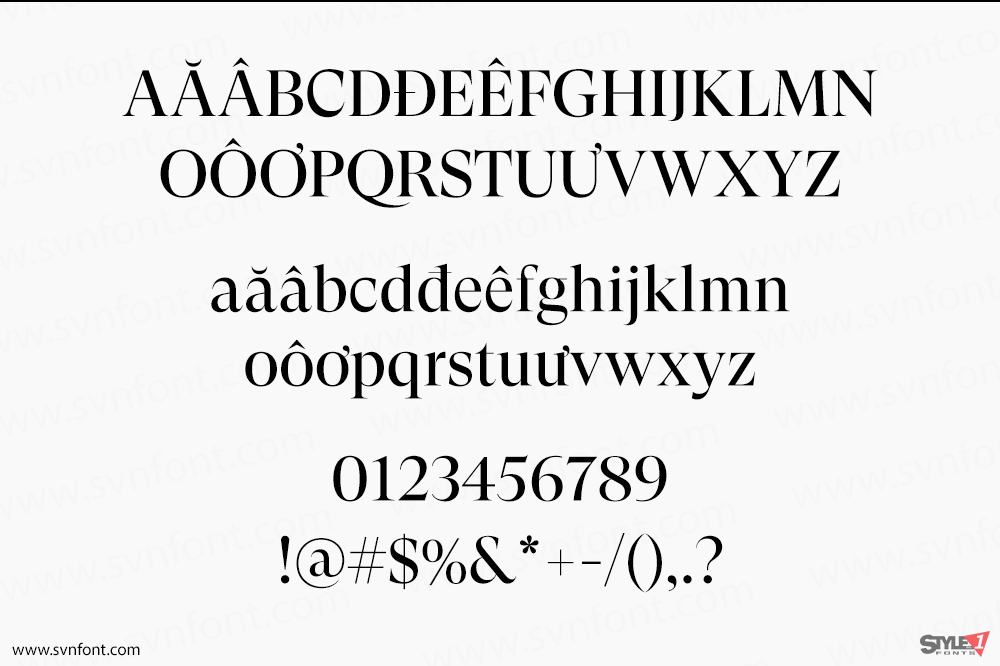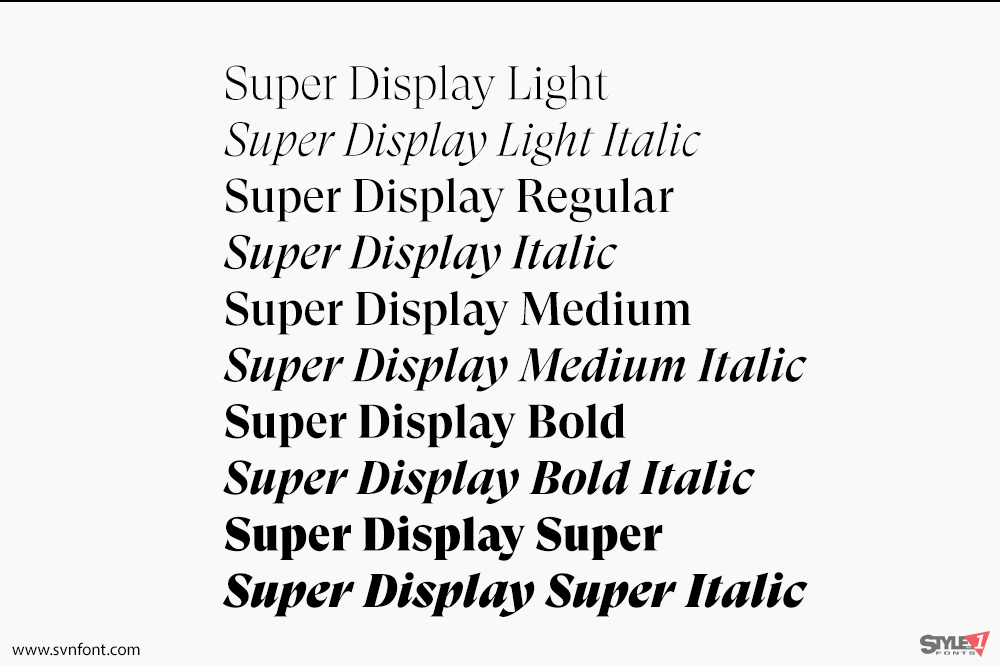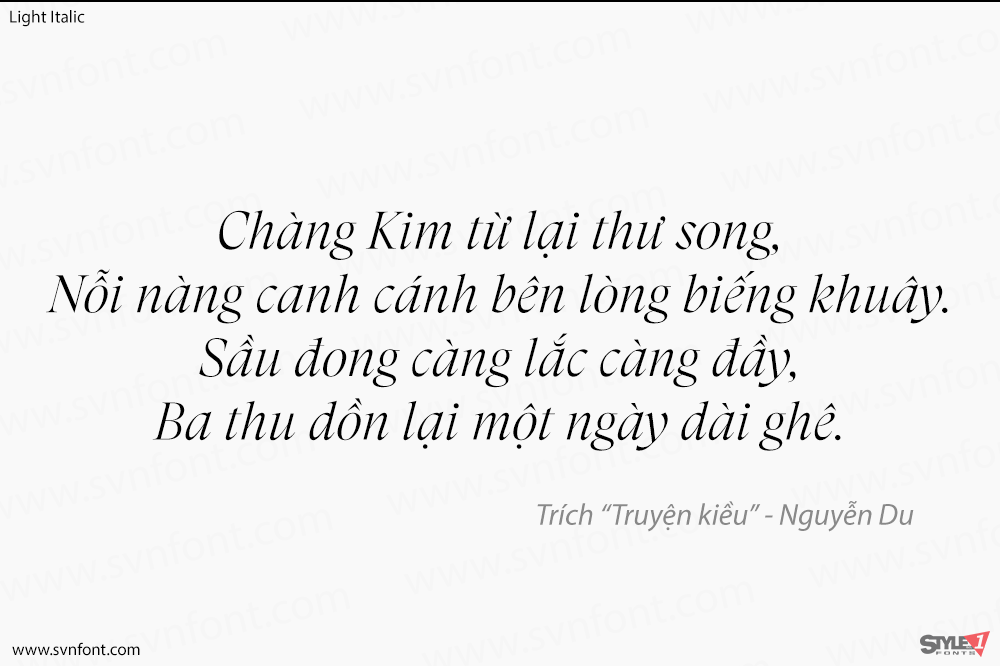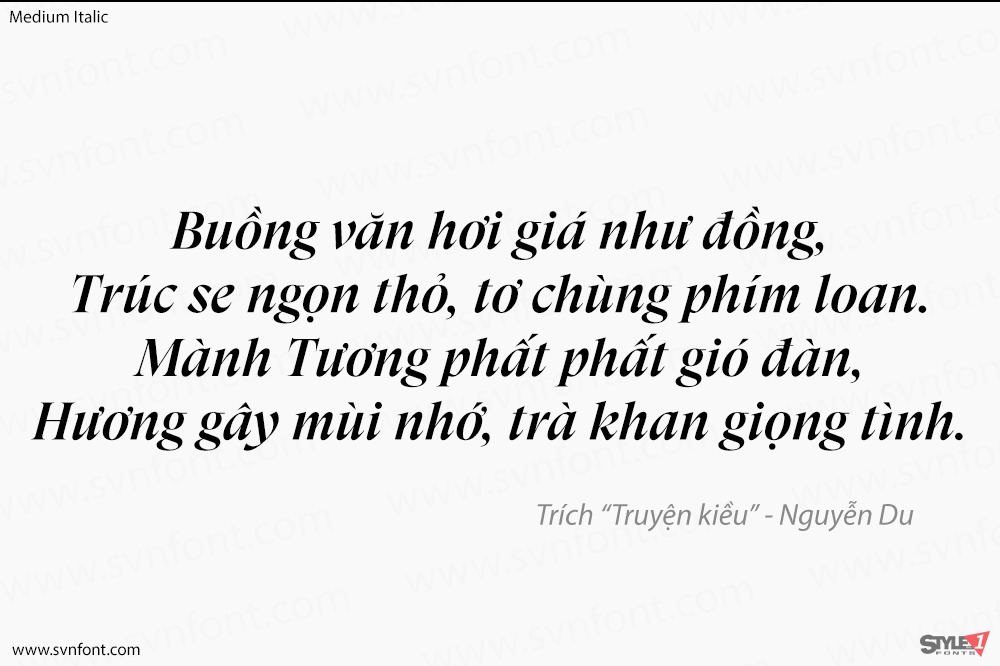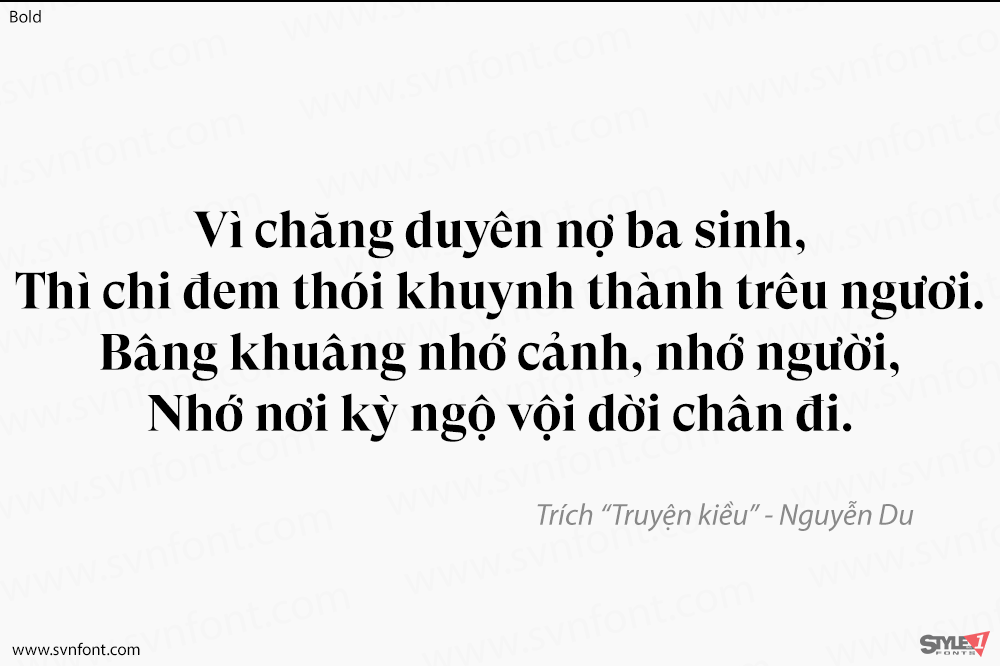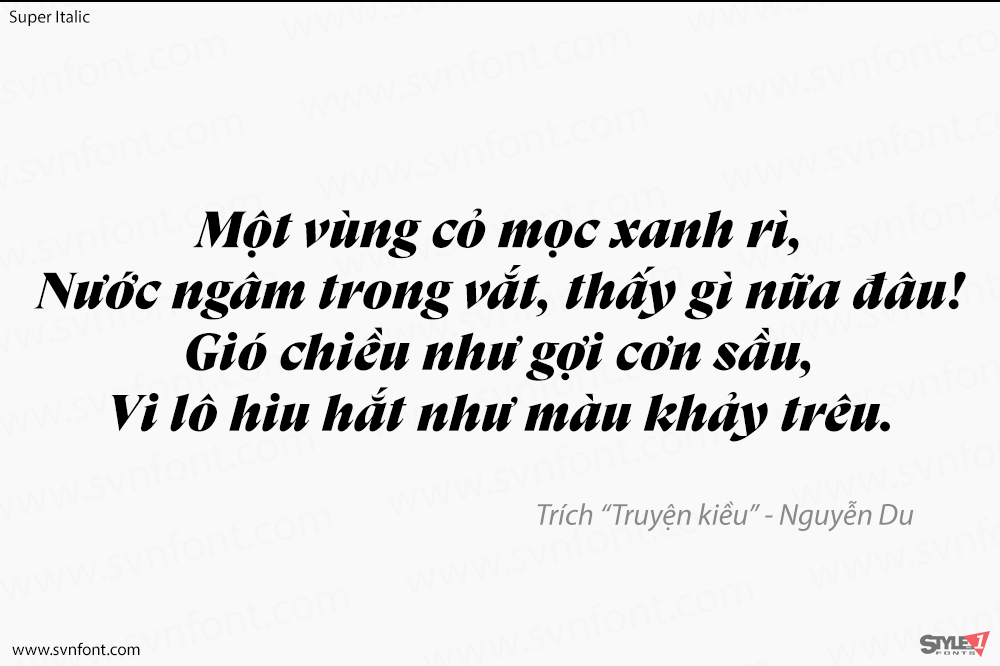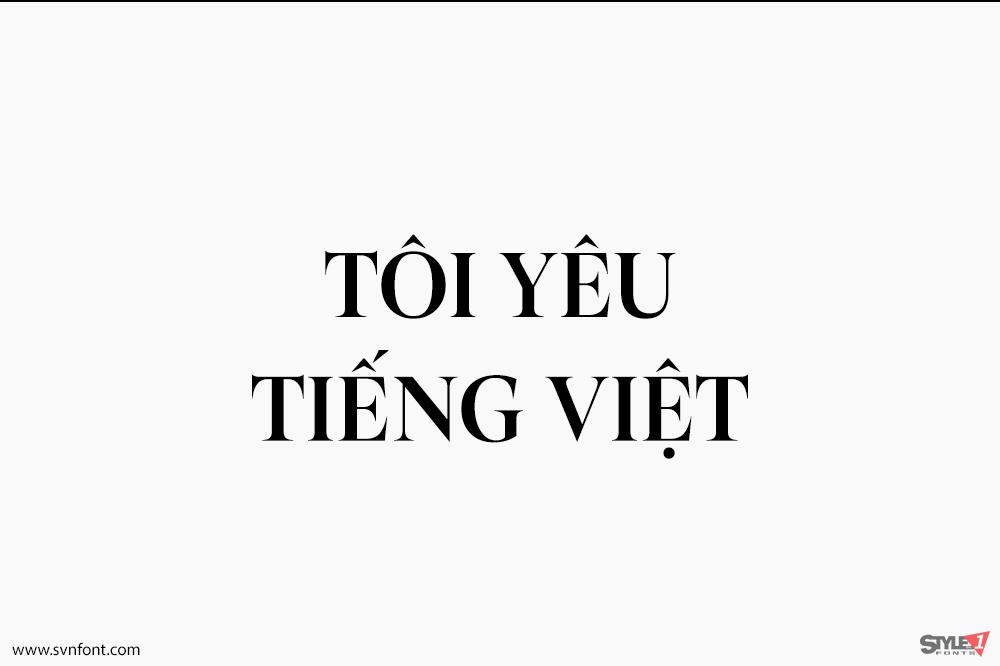
[Việt hóa] SVN-Super Display (10 fonts)
GT Super is the result of an extensive investigation into display serif typefaces from the 1970s and 80s. It focuses on the expressive and idiosyncratic nature of calligraphic motions, compelled into stable, typographic shapes.
Nhà thiết kế: Noël Leu (Grilli Type) with help from Mirco Schiavone & Reto Moser
Nhà phát hành: Grilltype